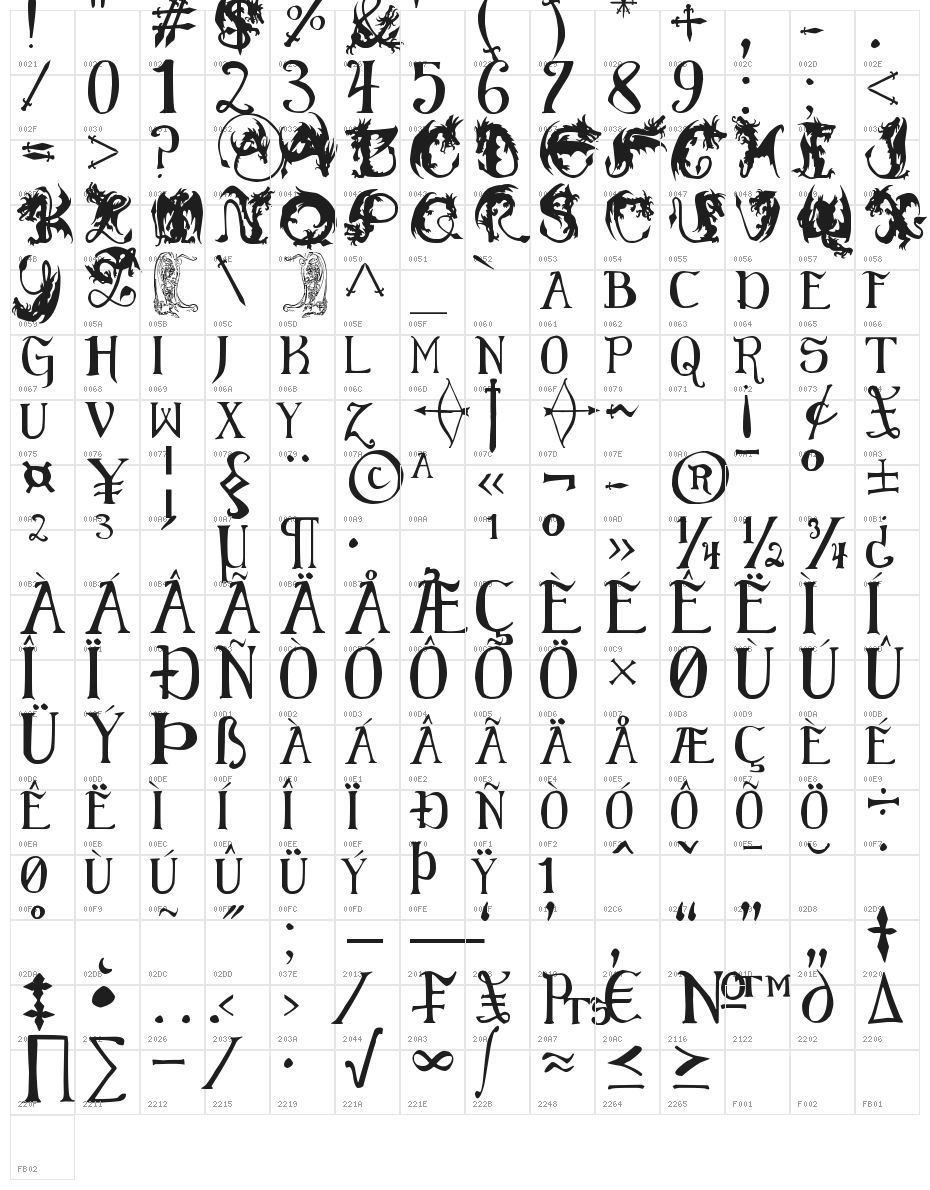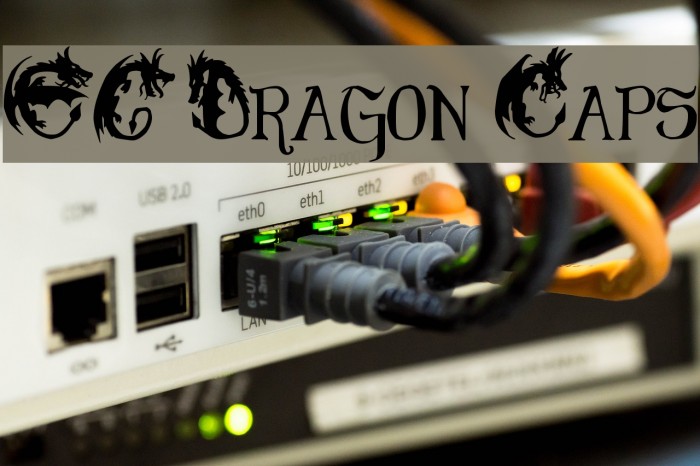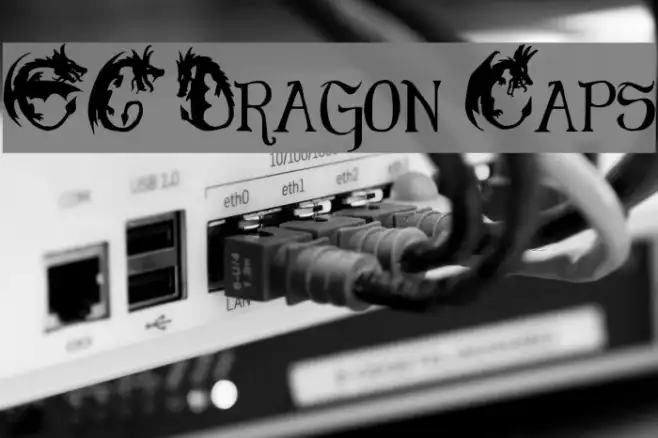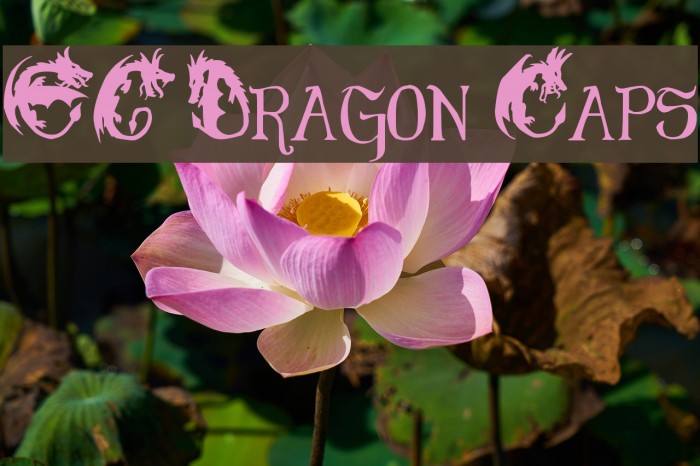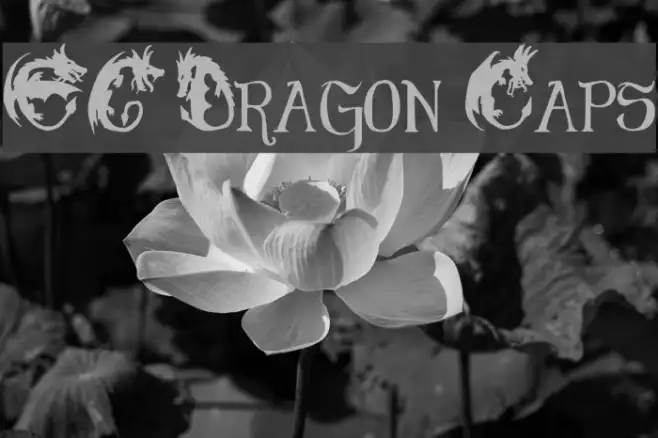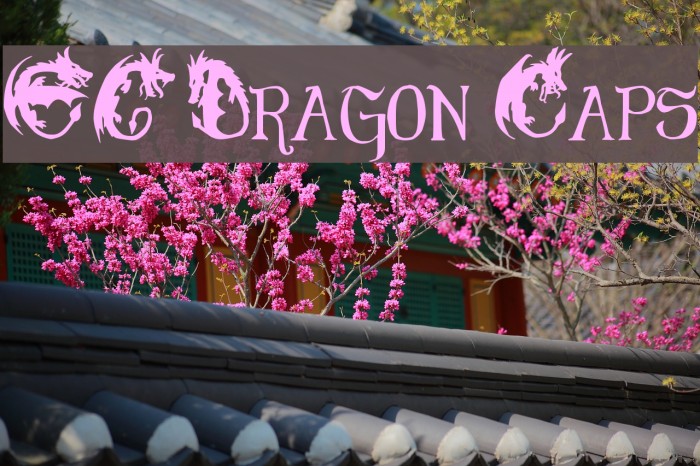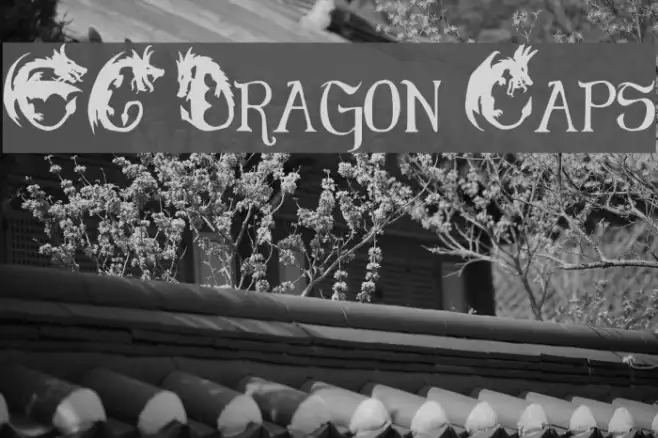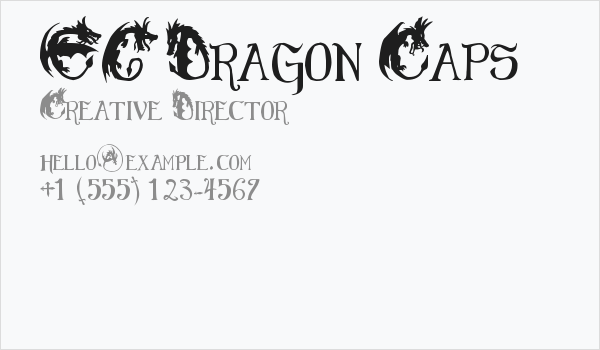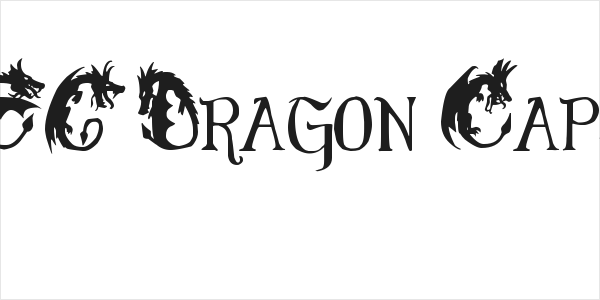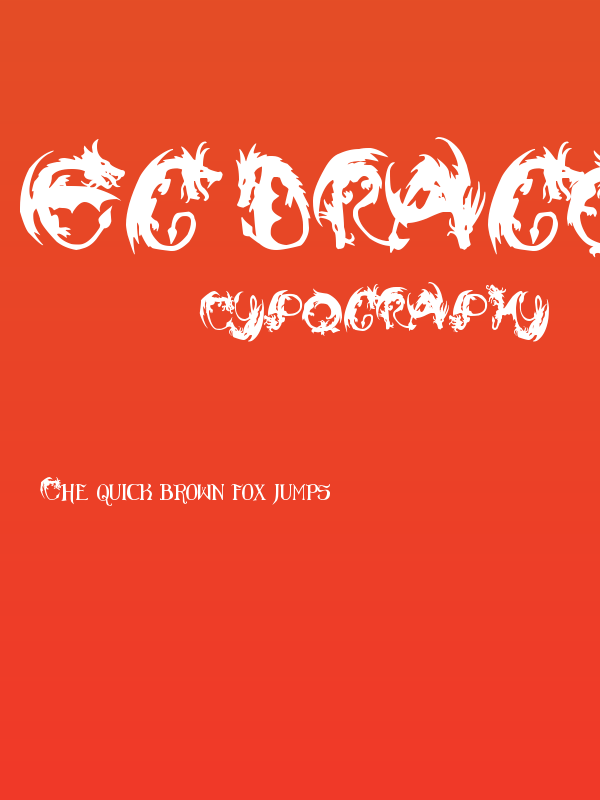
EG Dragon Caps Font
EG Dragon Caps Description
This font features a highly decorative and intricate design, with uppercase letters that resemble dragon-like forms, incorporating elaborate curves and spikes. The lowercase letters and numbers maintain a more traditional serif style, offering a stark contrast to the ornate uppercase. The special characters continue the theme with unique embellishments, adding to the font's fantasy and mythical aesthetic. The overall appearance is bold and eye-catching, making it suitable for projects that require a dramatic and artistic flair.
| Proposed Projects | Ideal for fantasy-themed projects, book covers, gaming titles, and decorative posters. |